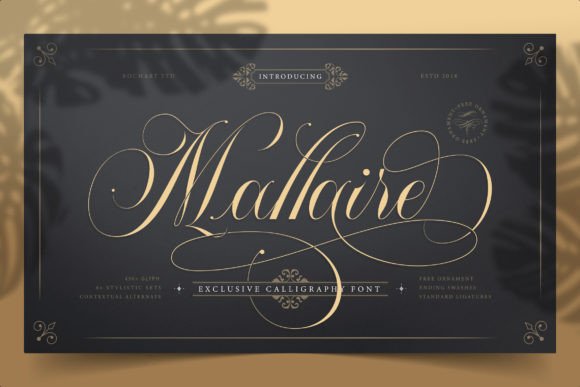
Mallaire Font: A Timeless Calligraphy Font for Elegant Designs
Mallaire font is a beautiful calligraphy font that exudes a sense of classic elegance and sophistication. Inspired by the handwriting of ancient manuscripts, Mallaire is carefully designed to bring a touch of luxury and refinement to any design project. In this article, we’ll explore the features and benefits of Mallaire font, and how it can be used to create stunning designs for various applications.
The Inspiration Behind Mallaire Font
Mallaire font is inspired by the traditional calligraphy of ancient manuscripts. The font’s creator aimed to capture the essence of classic handwriting, while infusing it with a modern twist. The result is a font that is both timeless and elegant, perfect for designs that require a touch of sophistication.
Key Features of Mallaire Font
Mallaire font boasts several key features that make it an excellent choice for designers. Some of its notable features include:
- Classic and elegant design: Mallaire font features a classic and elegant design that is perfect for formal and luxurious applications.
- Calligraphy style: The font’s calligraphy style is inspired by ancient manuscripts, giving it a unique and distinctive look.
- Harmonious lettering: Mallaire font is carefully designed to work together in harmony, creating a beautiful and cohesive look.
Use Cases for Mallaire Font
Mallaire font is versatile and can be used for a variety of design projects. Some of the most popular use cases include:
- Wedding media: Mallaire font is perfect for wedding invitations, programs, and other wedding-related materials.
- Book covers: The font’s classic and elegant design makes it an excellent choice for book covers, especially for fiction and non-fiction books that require a touch of sophistication.
- Greeting cards: Mallaire font can be used to create beautiful and elegant greeting cards for special occasions.
- Logos and branding: The font’s unique and distinctive look makes it an excellent choice for logos and branding materials.
- Business cards and certificates: Mallaire font can be used to create professional and elegant business cards and certificates.
Benefits of Using Mallaire Font
Using Mallaire font offers several benefits, including:
- Elegance and sophistication: Mallaire font adds a touch of elegance and sophistication to any design project.
- Versatility: The font’s versatility makes it suitable for a wide range of design applications.
- Unique and distinctive look: Mallaire font’s unique and distinctive look sets it apart from other fonts, making it an excellent choice for designers who want to create something special.
Tips for Using Mallaire Font
Here are some tips for using Mallaire font:
- Pair it with a simple font: Mallaire font works best when paired with a simple font. This will help to create a beautiful contrast and make your design stand out.
- Use it for headlines and titles: Mallaire font is perfect for headlines and titles. Use it to create eye-catching and elegant headings.
- Experiment with different colors: Mallaire font looks great in a variety of colors. Experiment with different colors to find the one that works best for your design.
Mallaire font is a beautiful and elegant calligraphy font that is perfect for designers who want to add a touch of sophistication to their designs. With its classic and elegant design, harmonious lettering, and versatility, Mallaire font is an excellent choice for a wide range of design applications. Whether you’re creating wedding media, book covers, greeting cards, logos, or business cards, Mallaire font is sure to impress.
Here are some frequently asked questions about Mallaire font:
- What is Mallaire font?: Mallaire font is a calligraphy font with an exclusive style and a touch of classic, inspired by the handwriting of ancient manuscripts.
- What is Mallaire font used for?: Mallaire font can be used for a variety of design applications, including wedding media, book covers, greeting cards, logos, branding, business cards, and certificates.
- Is Mallaire font easy to read?: Yes, Mallaire font is easy to read and works well for both headings and body text.